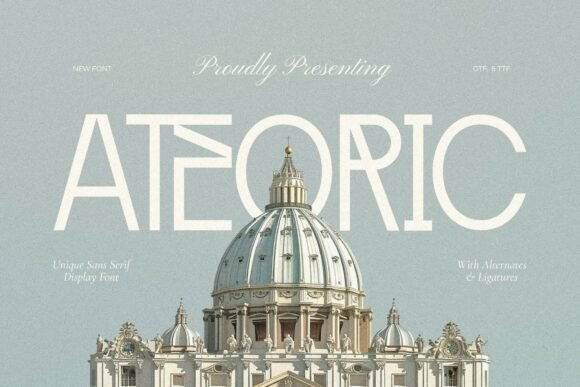
Ateoric Font: Elevate Your Creative Projects with a Unique Sans Serif Typeface
In the world of typography, a font can make or break the visual appeal of a creative project. With the vast array of typefaces available, it can be challenging to find one that stands out from the crowd. However, if you’re looking for a font that exudes sophistication, versatility, and artistic flair, look no further than Ateoric. This stunning sans serif typeface is designed to elevate your creative projects, whether you’re working on editorial, publishing, luxury branding, or any other visual endeavor.
What is Ateoric Font?
Ateoric is a unique, sophisticated, and versatile sans serif typeface that combines the best of timeless baroque-inspired sans serif with modern sans serif elements. This harmonious blend results in a font that is both captivating and adaptable, making it perfect for a wide range of applications.
The Inspiration Behind Ateoric
The Ateoric font draws inspiration from the elegant curves and refined lines of baroque-inspired sans serif typefaces. By incorporating curved cuts and modern sans serif elements, Ateoric’s designer has created a font that is both nostalgic and forward-thinking. The result is a typeface that feels both classic and contemporary, making it an excellent choice for creative projects that require a touch of sophistication.
Key Features of Ateoric Font
- Unique Curved Cuts: Ateoric’s curved cuts add an artistic flair to the font, setting it apart from more traditional sans serif typefaces.
- Timeless Elegance: The font’s baroque-inspired elements ensure that it remains timeless and elegant, even in the face of changing design trends.
- Versatility: Ateoric is designed to be versatile, making it suitable for a wide range of applications, from editorial and publishing to luxury branding and packaging.
- Modern Aesthetic: The font’s modern sans serif elements ensure that it feels fresh and contemporary, making it perfect for creative projects that require a modern aesthetic.
Perfect for a Variety of Applications
Ateoric’s versatility makes it an excellent choice for a wide range of creative projects. Here are some of the many use cases for this exceptional font:
- Editorial and Publishing: Use Ateoric to add a touch of sophistication to your magazine, book, or newspaper design.
- Luxury Branding: Elevate your luxury brand with Ateoric’s elegant and refined aesthetic.
- Logos and Brand Identity: Create a lasting impression with Ateoric’s unique and captivating design.
- Packaging: From cosmetics to gourmet foods, Ateoric is the perfect font for packaging design that requires a touch of sophistication.
- Posters and Advertising: Use Ateoric to create eye-catching posters and advertisements that demand attention.
Tips for Using Ateoric Effectively
To get the most out of Ateoric, here are some typography tips to keep in mind:
- Experiment with Font Sizes: Ateoric’s curved cuts and elegant lines look stunning in a variety of font sizes, from large headlines to smaller body text.
- Play with Line Spacing: Adjusting the line spacing can help to create a sense of flow and harmony in your text.
- Use Contrast: Combine Ateoric with other fonts to create contrast and visual interest.
In conclusion, Ateoric is a game-changing sans serif typeface that is sure to elevate your creative projects. With its unique curved cuts, timeless elegance, and versatility, Ateoric is the perfect font for anyone looking to add a touch of sophistication to their design. Whether you’re working on editorial, publishing, luxury branding, or any other visual endeavor, Ateoric is an excellent choice.
Final Thoughts